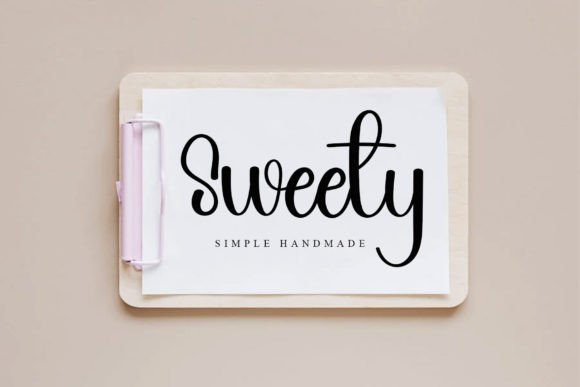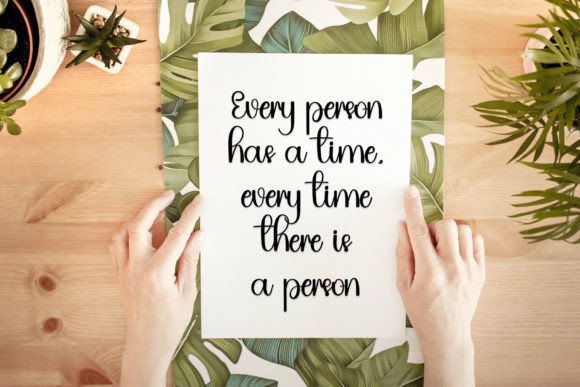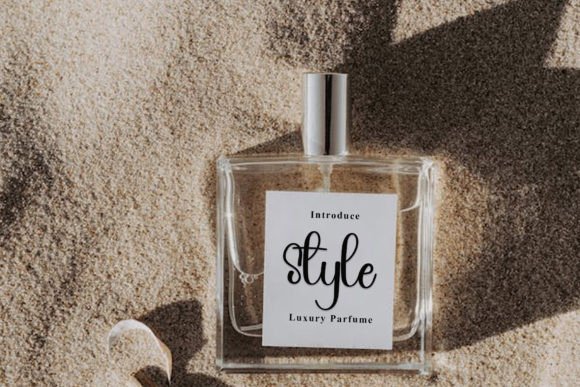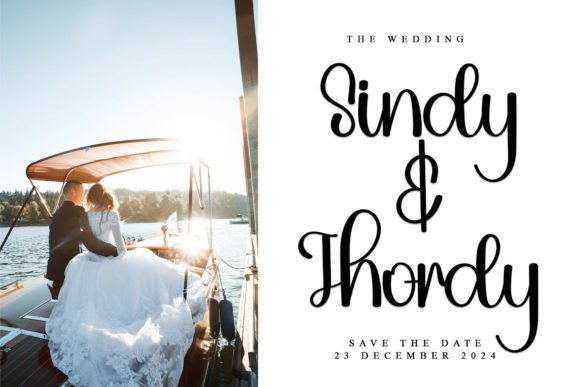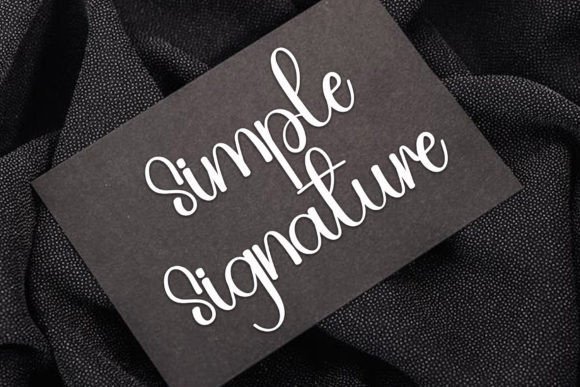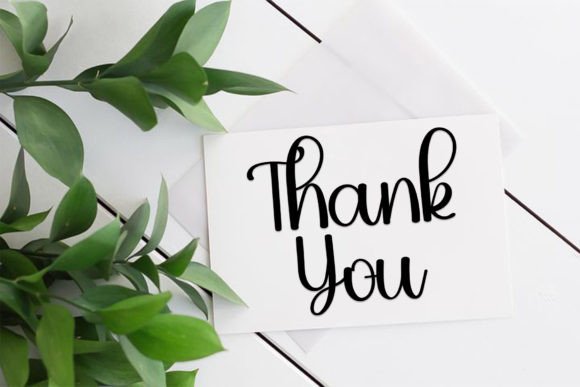
Introducing the Butterfly Font: A Friendly and Relaxed Handwritten Delight
Are you on the hunt for a font that exudes warmth, friendliness, and a touch of whimsy? Look no further than the Butterfly Font, a stunning handwritten font that’s sure to capture your heart. With its incredibly versatile style, this font is perfect for a wide range of creative projects, from wedding invitations and stationery to social media posts and more.
The Charm of Butterfly Font
The Butterfly Font is a beautifully crafted handwritten font that’s designed to evoke a sense of relaxation and friendliness. Its flowing lines, gentle curves, and subtle imperfections give it a delightfully human touch that’s perfect for creating a personal connection with your audience. Whether you’re a designer, crafty DIY enthusiast, or social media influencer, this font is sure to become your new go-to for all your creative projects.
Endless Possibilities with Butterfly Font
One of the best things about the Butterfly Font is its incredible versatility. This font can be used for a wide range of projects, including:
- Wedding Invitations: Create gorgeous, one-of-a-kind wedding invitations that set the tone for a romantic and unforgettable celebration.
- Stationery: Add a touch of elegance and sophistication to your stationery with the Butterfly Font, perfect for creating beautiful greeting cards, thank-you notes, and more.
- Social Media Posts: Make your social media posts stand out from the crowd with the Butterfly Font’s eye-catching, hand-drawn charm.
- Branding: Use the Butterfly Font to create a unique and memorable brand identity that reflects your values and personality.
Why Choose Butterfly Font?
So why choose the Butterfly Font over other fonts on the market? Here are just a few reasons why this font stands out:
- Unique and Handcrafted: The Butterfly Font is a carefully crafted, handmade font that’s designed to bring a touch of personality and whimsy to your projects.
- Easily Readable: Despite its ornate, handwritten style, the Butterfly Font is surprisingly easy to read, making it perfect for both digital and print applications.
- Highly Versatile: Whether you’re creating wedding invitations, social media posts, or branding materials, the Butterfly Font is incredibly versatile and can be used for a wide range of projects.
Tips for Using Butterfly Font
To get the most out of the Butterfly Font, here are a few tips to keep in mind:
- Experiment with Colors: The Butterfly Font looks stunning in a range of colors, so don’t be afraid to experiment and find the perfect hue for your project.
- Mix and Match: Combine the Butterfly Font with other fonts and design elements to create a unique and eye-catching look.
- Pay Attention to Spacing: To ensure your text looks its best, pay attention to spacing and adjust as needed to create a clean and elegant look.
In conclusion, the Butterfly Font is a friendly and relaxed handwritten font that’s sure to capture your heart. With its incredibly versatile style, this font is perfect for designers, crafty DIY enthusiasts, and social media influencers looking to add a touch of whimsy and personality to their projects. So why wait? Fall in love with the Butterfly Font today and start creating gorgeous, one-of-a-kind projects that showcase your unique style and creativity.